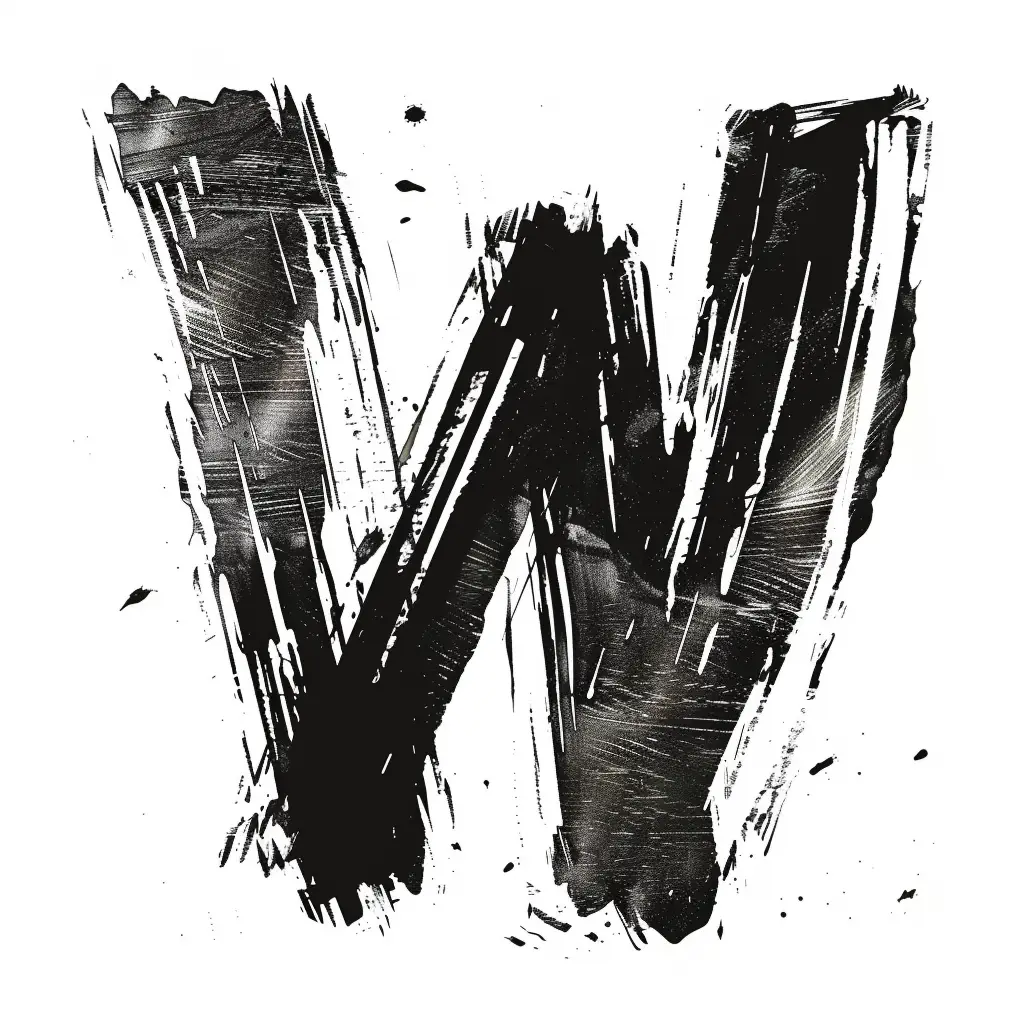
The image features a bold, stylized letter "W" rendered in a rough, brushstroke-like black ink style against a white background. The letter has uneven edges, visible texture, and scattered ink splatters, giving it a dynamic, artistic, and slightly chaotic appearance. The high-contrast black-and-white color scheme emphasizes the letter’s rugged, hand-drawn aesthetic.